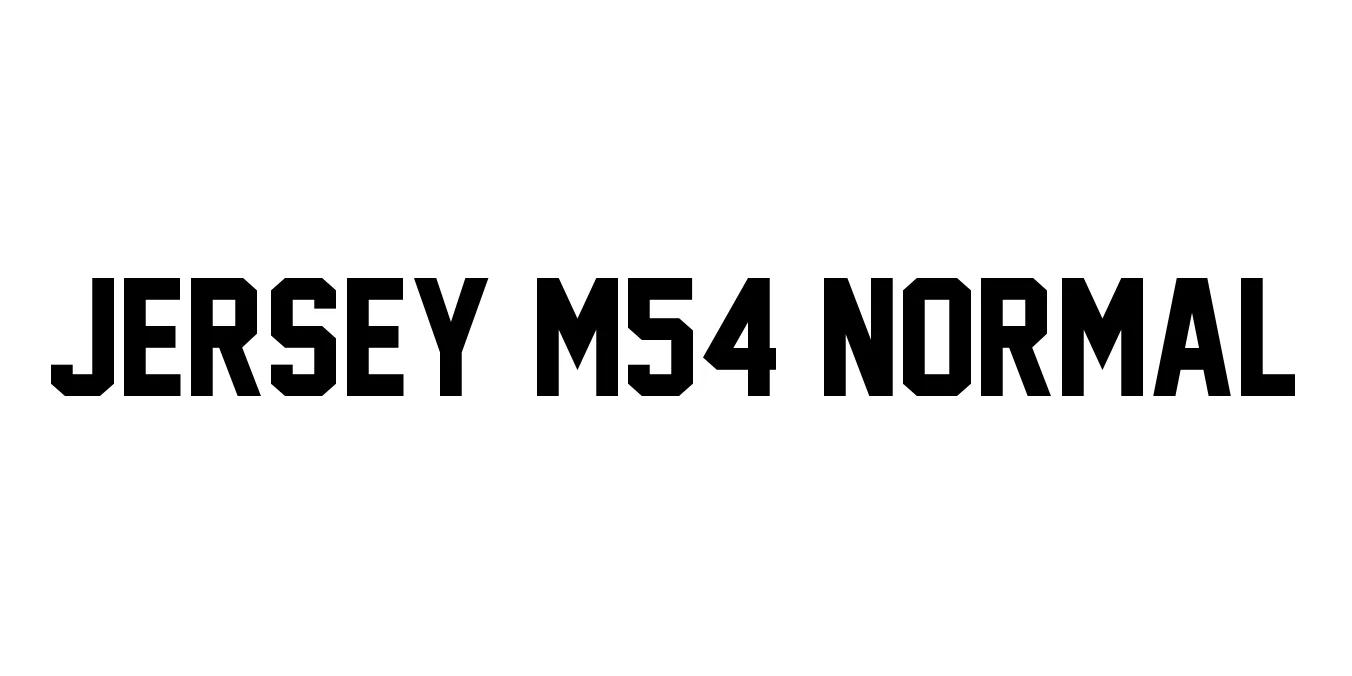
Jersey M54 Normal
Designed by Mohammed (M54)
| Category | Athletic / Display |
| Designer | Mohammed (M54) |
Jersey M54 Normal is a quintessential athletic block font designed by M54, specifically tailored for the sports and apparel industry. It draws heavy inspiration from classic varsity lettering and collegiate slab-serif styles, offering a bold and authoritative presence. The font is meticulously crafted with sharp, angular strokes that evoke a sense of strength and competition, making it a favorite for team branding and athletic identity systems.
Beyond its traditional use on football and basketball uniforms, Jersey M54 has expanded into the world of urban streetwear and modern graphic design. Its high visibility and clean construction allow it to remain legible even when viewed from a distance or printed on textured fabrics. Whether it is used for digital media or physical merchandise, the font provides a professional collegiate aesthetic that resonates with sports fans and designers alike.
Jersey M54 Normal Best Uses
The primary choice for printing names and numbers on athletic jerseys and uniforms.
Used to create strong, recognizable logos for high school, college, and professional sports teams.
Perfect for collegiate-style hoodies, t-shirts, and varsity jackets.
Excellent for high-impact headlines on posters and flyers for sporting tournaments.